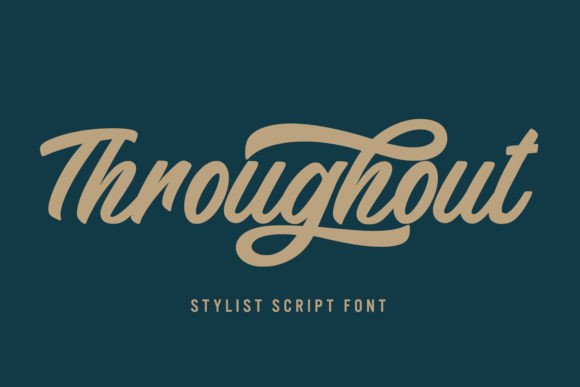
Feast your eyes on Throughout – Stylist Script Font, the ultimate font companion for your creative endeavors, designed with exquisite detail by Arendxstudio. This script font is not just a collection of letters; it's an expression of art that will transform your designs into captivating masterpieces.
Unleash your imagination and let Throughout Font guide you through a world of visual enchantment. Its distinctive handwritten characters dance across the page, evoking a sense of elegance and authenticity that is unmatched. Create logos that stand out, branding that resonates, and designs that leave a lasting impression.
With Throughout Font, you have the power to craft wordmark logos that speak volumes. Its carefully crafted curves and graceful strokes add a touch of sophistication that makes your words come alive. Whether it's a fashion brand, a creative studio, or a personal project, Throughout Font will elevate your designs to new heights.
But Throughout Font's versatility extends far beyond logos. It's the perfect font for wedding invitations, adding a touch of romance and charm to your special day. Create media posts that captivate your audience, with words that flow effortlessly across the screen. Design advertisements that demand attention, with headlines that leap off the page.
Imagine the possibilities for product packaging and labels, where Throughout Font transforms ordinary products into works of art. Its handwritten style adds a personal touch, creating a connection between your brand and your customers. Design stationery that exudes elegance, with letterheads, business cards, and envelopes that reflect your impeccable taste.
Throughout Font is the perfect font for photography, adding a touch of artistry to your captured moments. Create watermarks that protect your images while enhancing their beauty. Design invitations that hint at the magic of the event to come. Whether it's a birthday celebration, a corporate gala, or an intimate gathering, Throughout Font will set the tone for an unforgettable occasion.
Don't settle for ordinary fonts. Embrace the beauty and versatility of Throughout Font and embark on a creative journey that will captivate your audience. Let your designs shine with the elegance of handwritten characters and elevate your projects to new heights.